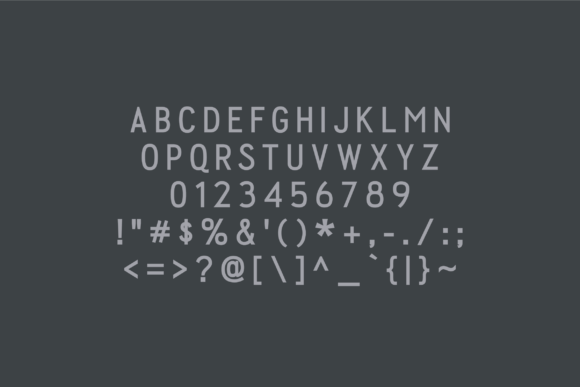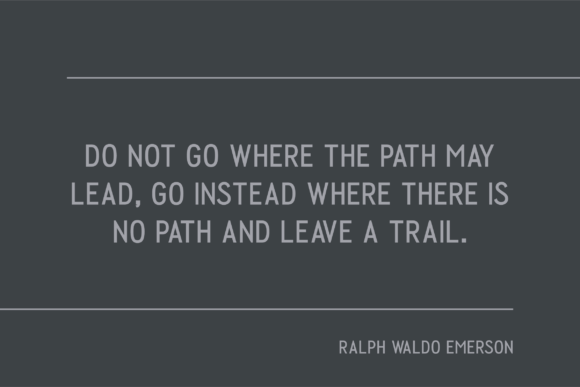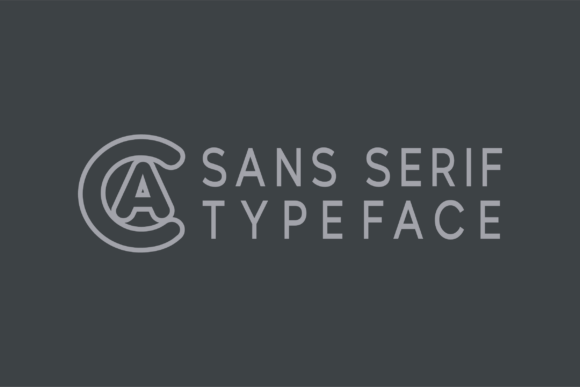
Introduction to Phoebus Font
Have you ever stared at a blank canvas, wondering how to bring your creative vision to life? For many designers, this moment is a familiar one – the moment when inspiration strikes, but the perfect design resource is just out of reach. But what if you had the perfect tool at your fingertips? Enter the Phoebus Font, a modern, classy sans serif typeface that’s about to revolutionize your creative project.
Whether you’re working on a high-profile advertisement or a simple wedding invitation, the Phoebus Font is the perfect choice. With its clean lines, elegant curves, and transparent background, this versatile font is sure to elevate your design to the next level. And the best part? It’s available for free download, making it an invaluable resource for designers of all levels.
Key Features of Phoebus Font
- Unique, modern aesthetic makes it perfect for branding, typography, and graphic design projects
Honest Review: Phoebus Font
As a designer, I’m always on the lookout for high-quality design resources that can elevate my creative projects. Recently, I had the opportunity to try out the Phoebus Font, and I’m excited to share my thoughts on it.
- ✨ Unique and modern design aesthetic that adds a touch of sophistication to any project.
- ⚠️ Limited font weights and styles, which may not be suitable for projects that require a wide range of font options.
- ⚠️ May not be as versatile as some other fonts on the market, which could limit its use in certain creative projects.
Overall, I’m impressed with the Phoebus Font and would recommend it to designers who are looking for a modern and sophisticated font to add to their design arsenal. While it may have some limitations, it’s a great resource for designers who want high-quality fonts without breaking the bank.
Common Use Cases for Phoebus Font
The Phoebus Font is ideal for a wide range of creative projects, including logo design, branding, advertising, and publishing. Its high-quality design and transparent background feature make it a versatile resource for designers and artists.